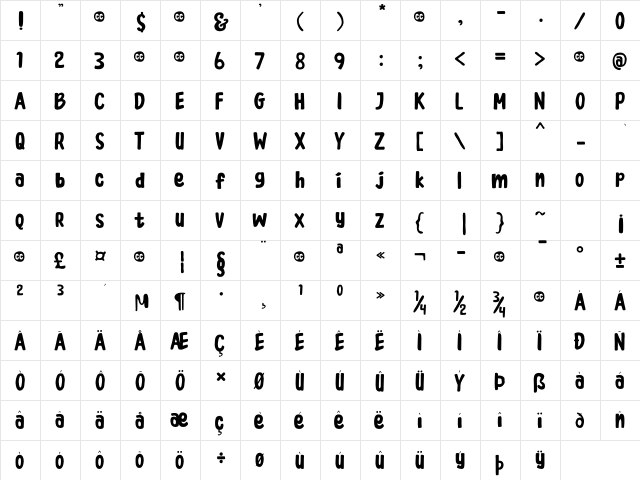
Coconut Cookies Regular
| Designer | Kurnia Setyadi |
Design Context for Coconut Cookies Typeface
Coconut Cookies offers clean, dependable letterforms without strong stylistic allegiance, making it a practical choice for designers who need flexibility.